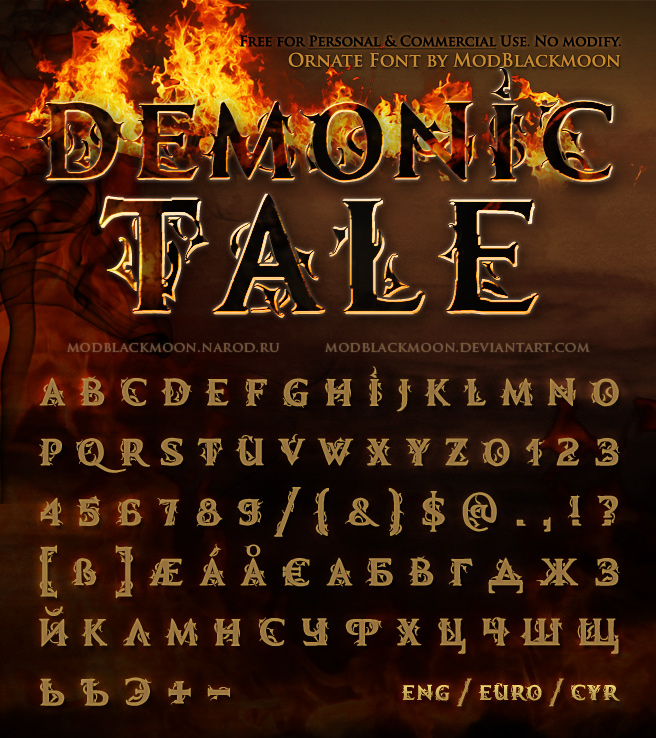
New ornate font, based on roman capitals. Incl. English, European and Cyrillic letters and Numbers. Free for personal and commercial use. No modify! |